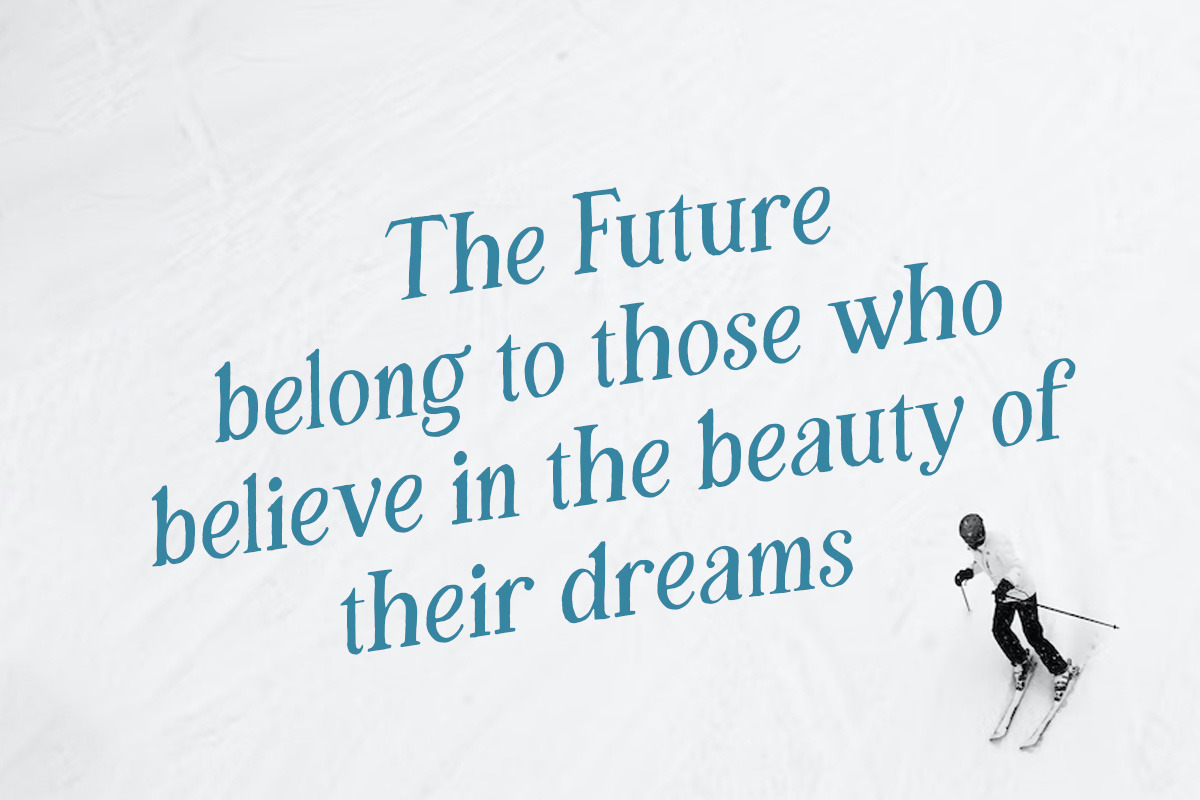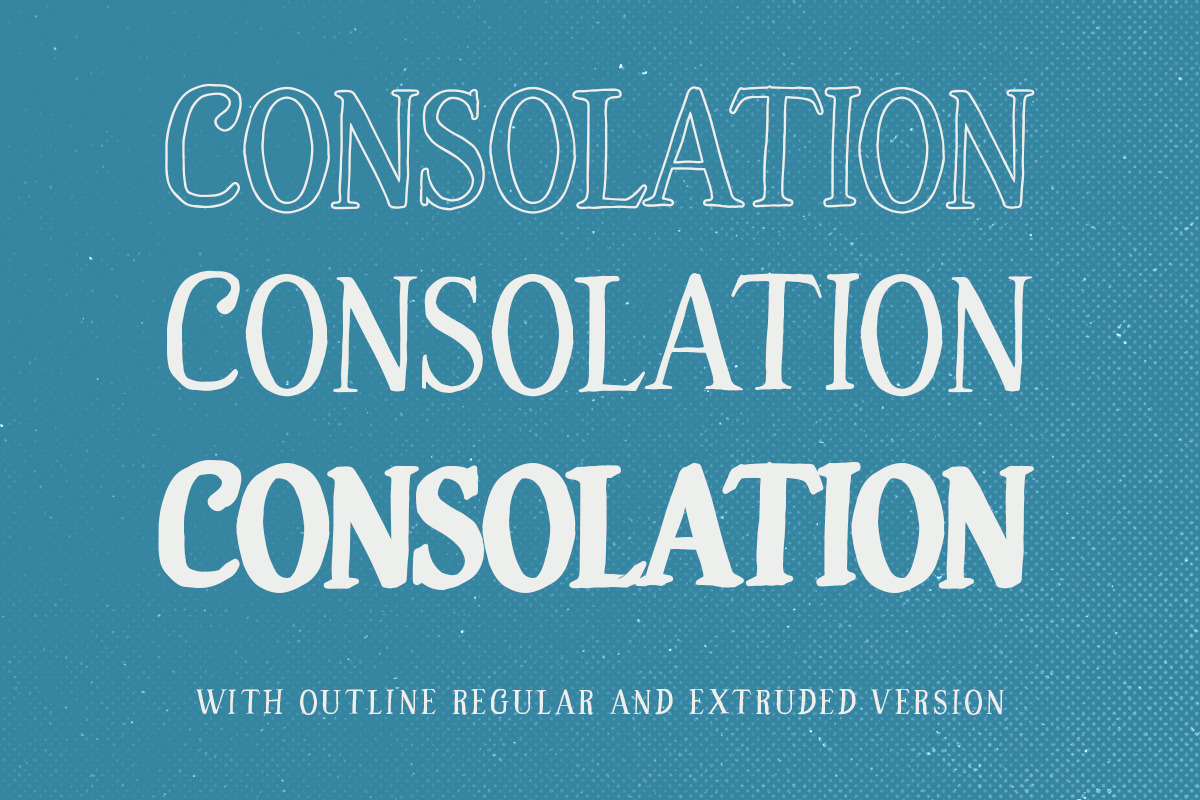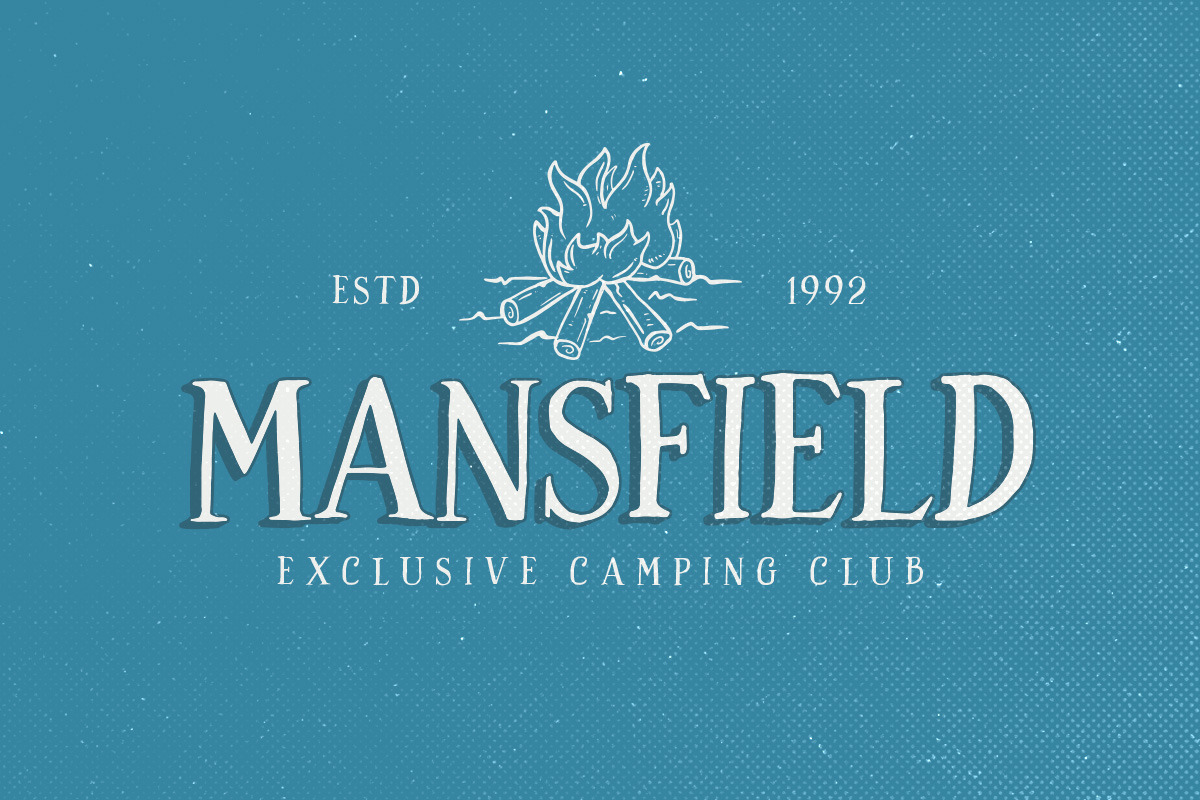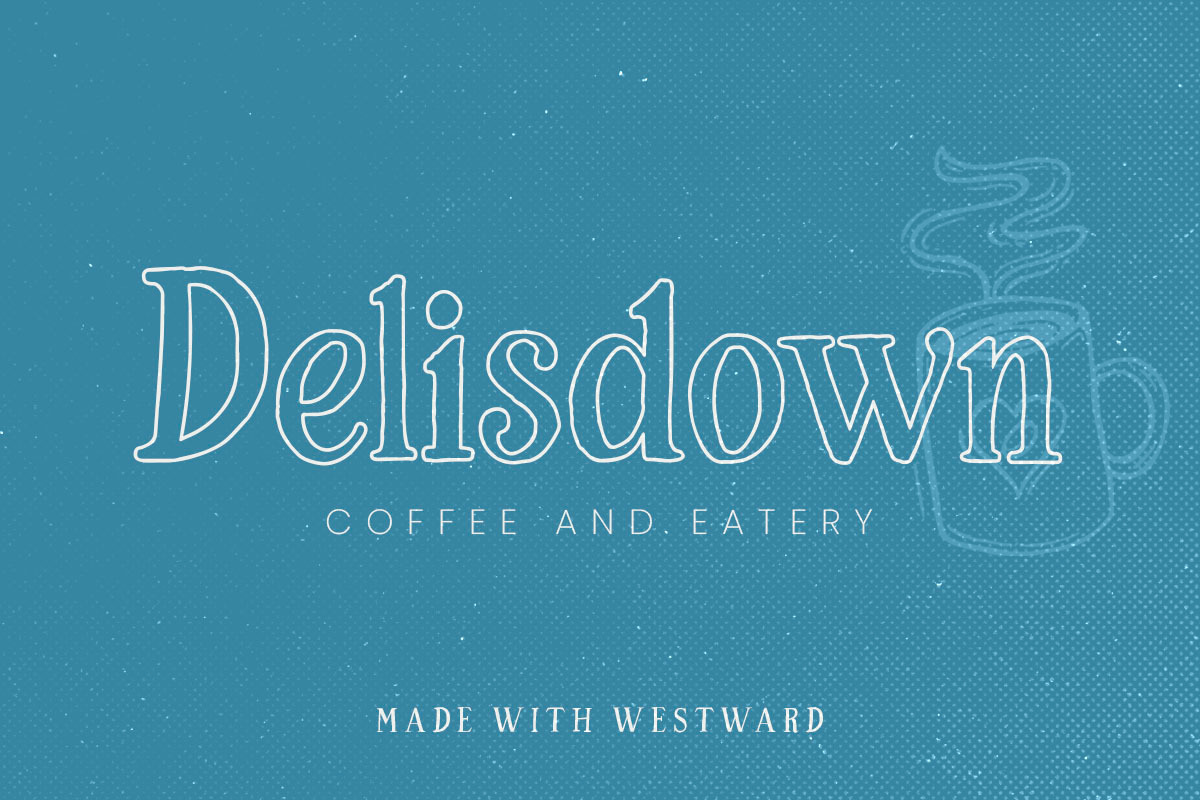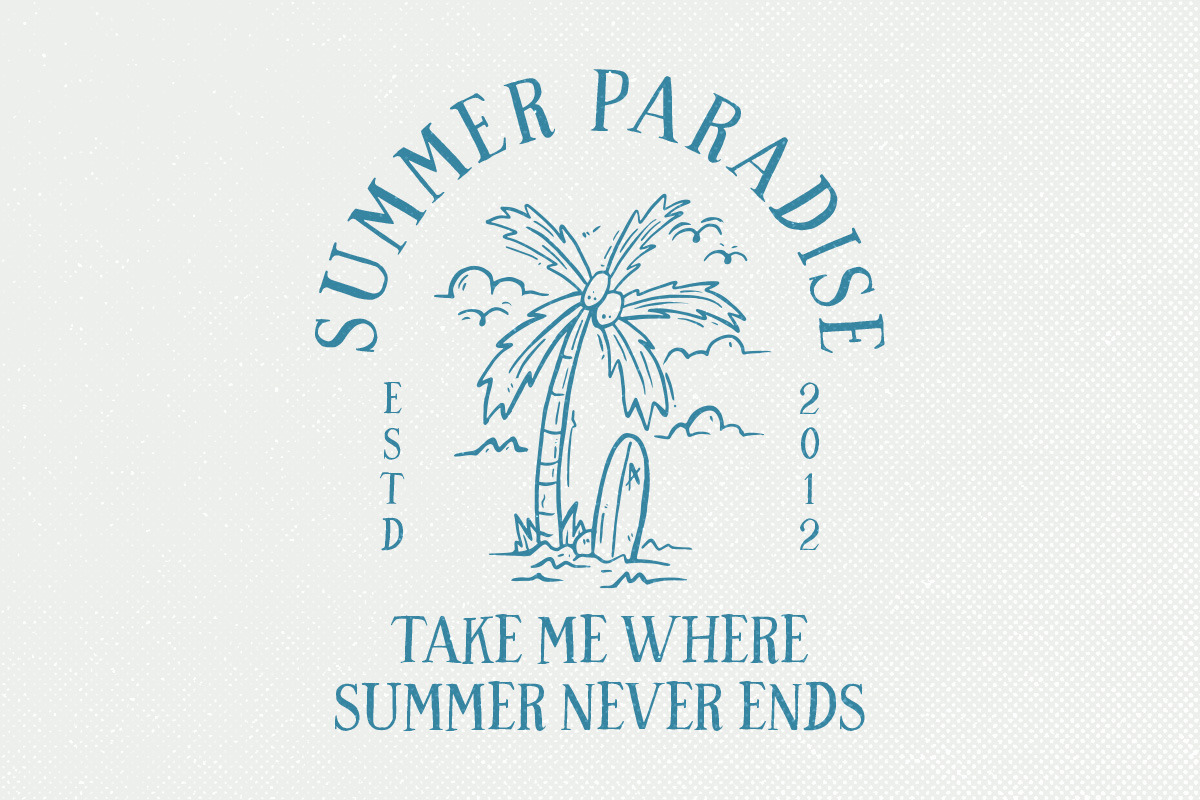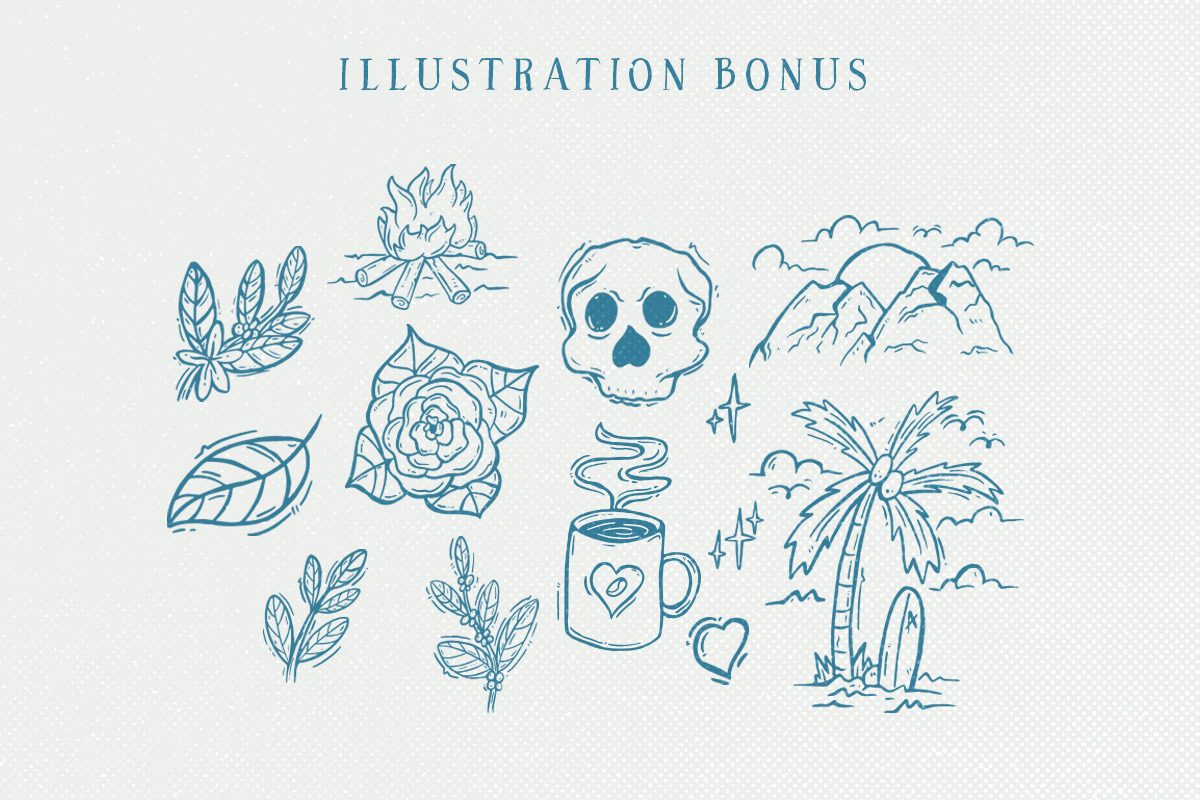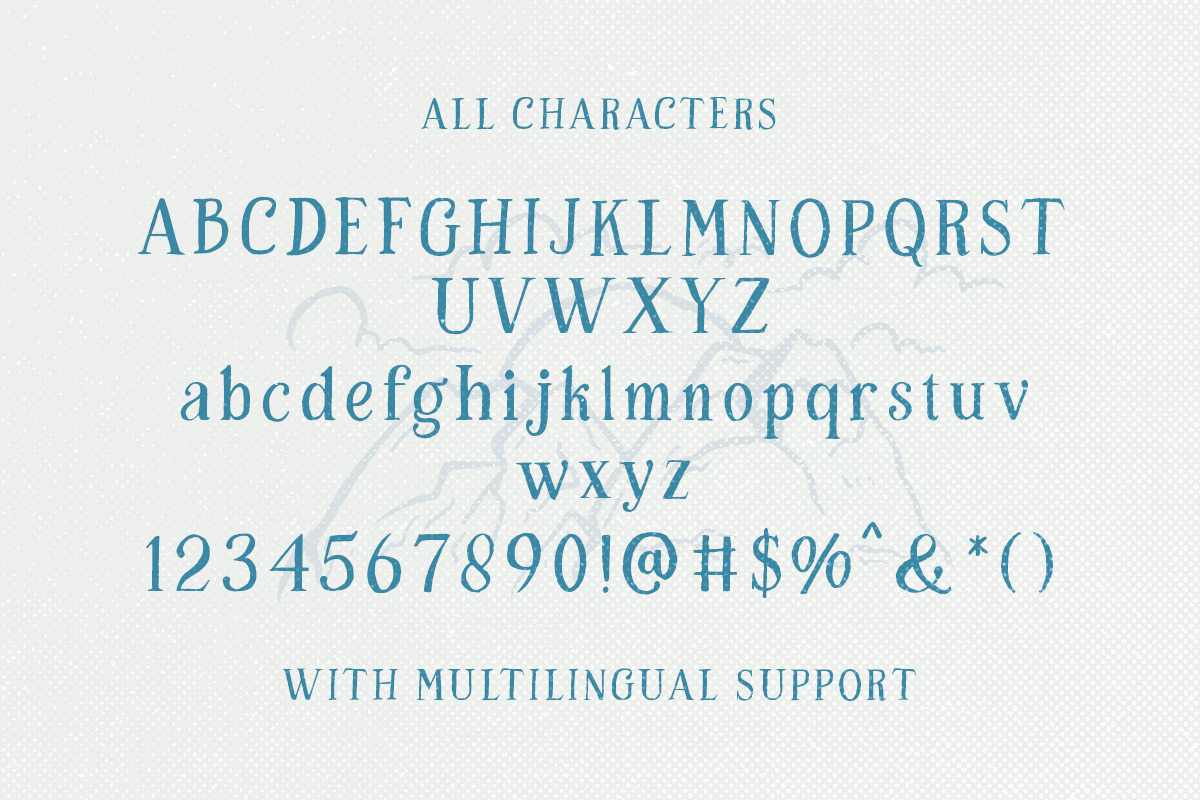
Westward - Hand drawn Serif
Introducing the Westward hand-drawn serif font, now featuring both uppercase and lowercase letters! This font is perfect for adding a unique and personal touch to your designs. Each letter has been carefully crafted to provide a natural, hand-drawn look and feel. And as a special bonus, we're including 13 beautifully hand-drawn illustrations in vector format, with a mix of themes that perfectly complement the Westward font. These illustrations will take your designs to the next level, whether you're working on branding materials, websites, social media posts, or any other project.
The Westward font and illustration bundle is a must-have for any designer looking to add a touch of personality, creativity, and charm to their work. With its hand-drawn aesthetic and versatile style, the Westward font is perfect for a variety of projects, from logos and packaging to invitations and posters. Say goodbye to boring designs and hello to endless possibilities with the Westward hand-drawn serif font and bonus illustrations. Get it now and bring your visions to life!